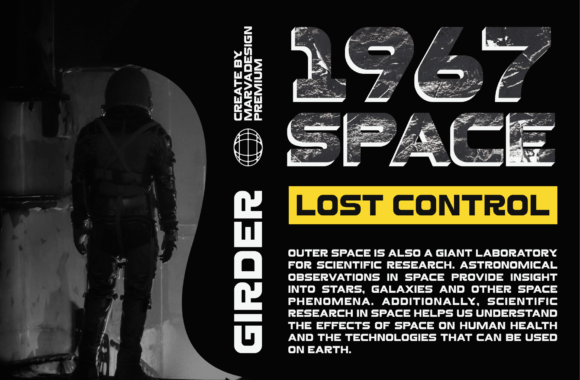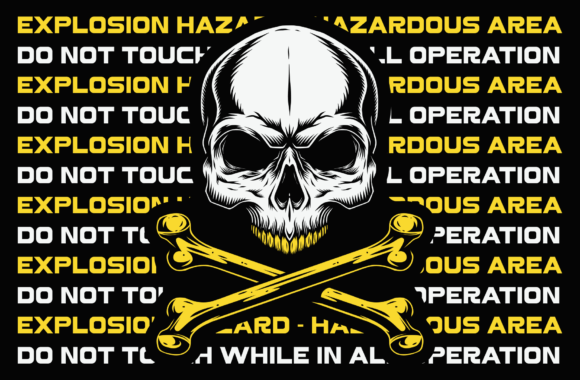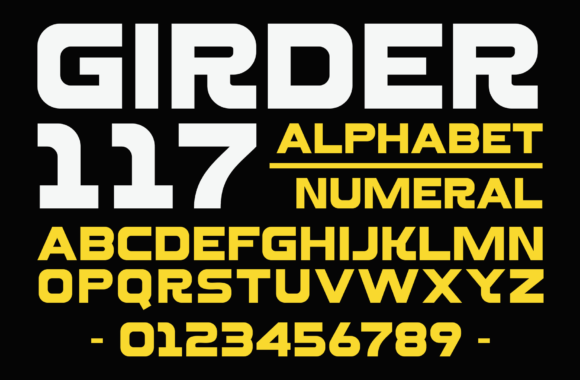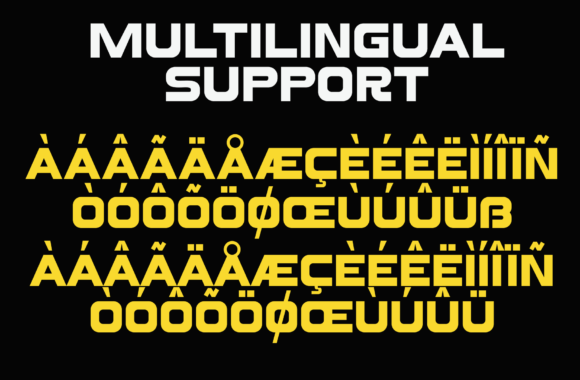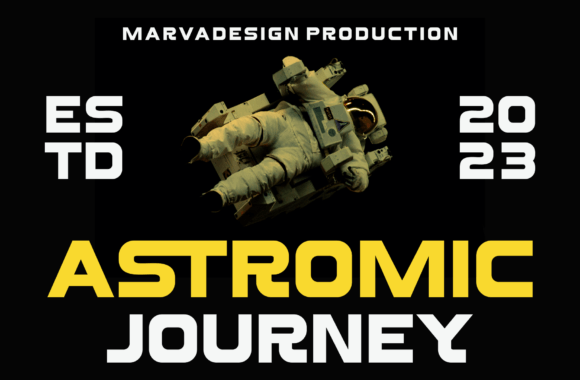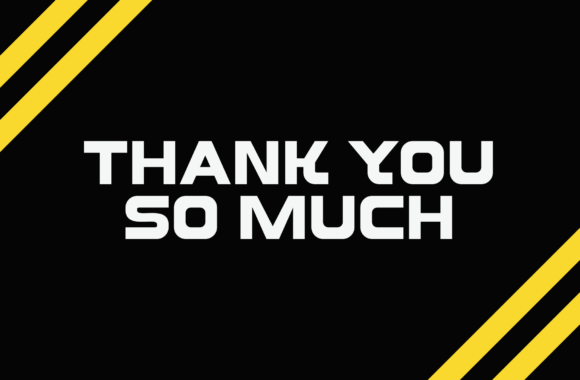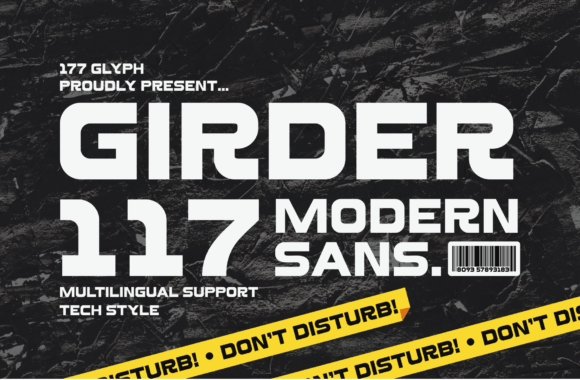
Girder 117 Font: A Modern Sans Serif for Contemporary Designs
In the world of typography, fonts play a crucial role in conveying the message and aesthetic of a design. With numerous font styles available, designers and crafters are constantly on the lookout for modern and versatile options. One such font that has gained attention in recent times is Girder 117, a sleek and clean Modern Sans Serif font.
What is Girder 117 Font?
Girder 117 is a type of font called a Modern Sans Serif. It’s simple and clean, without any fancy decorations on the letters. The design is sleek and modern, making it easy to read both on screens and in print. If you want your text to look contemporary and professional, Girder 117 is a great choice.
Key Features of Girder 117 Font
- Modern Sans Serif Design: Girder 117 boasts a clean and minimalist design, characteristic of Modern Sans Serif fonts. The lack of decorative elements ensures that the text remains clear and legible.
- Sleek and Professional Look: The font’s sleek design makes it perfect for projects that require a professional and contemporary aesthetic.
- Excellent Readability: Girder 117 is optimized for both digital and print media, ensuring that your text is easily readable across various platforms.
- Versatility: This font can be used for a wide range of applications, from branding and advertising to web design and crafting.
Use Cases for Girder 117 Font
Girder 117’s versatility makes it suitable for various design projects. Here are some use cases:
- Branding and Logo Design: Create a professional and modern brand identity with Girder 117. Its clean design ensures that your logo stands out and remains memorable.
- Web Design: Use Girder 117 as a primary font for your website to give it a contemporary look. Its readability on screens makes it perfect for digital media.
- Advertising and Marketing: Make a statement with Girder 117 in your advertising and marketing materials. Its sleek design ensures that your message is conveyed effectively.
- Crafting and DIY Projects: Add a professional touch to your crafting and DIY projects with Girder 117. Use it for labels, signs, and other materials to give them a modern look.
Tips for Using Girder 117 Font
To get the most out of Girder 117, consider the following tips:
- Pair with Other Fonts: Experiment with pairing Girder 117 with other fonts to create visual interest. Its clean design makes it a great base font to combine with more decorative fonts.
- Adjust Font Sizes: Play with font sizes to create a hierarchy of information. Girder 117’s readability ensures that your text remains clear even at smaller sizes.
- Use Color Effectively: Choose colors that complement the modern aesthetic of Girder 117. Neutral colors like black, white, and gray work well, but feel free to experiment with bold colors to make a statement.
Girder 117 is a versatile and modern font that can elevate your designs and projects. Its clean and sleek design makes it perfect for a wide range of applications, from branding and web design to crafting and DIY projects. With its excellent readability and professional look, Girder 117 is an excellent choice for designers and crafters looking to add a contemporary touch to their work.